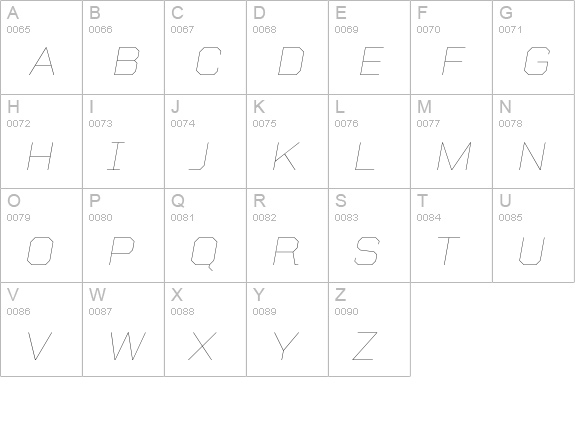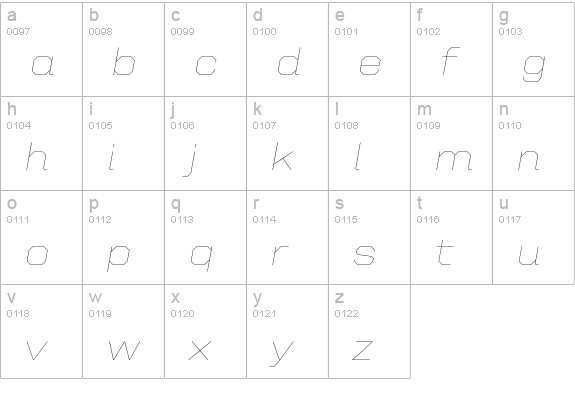
United Italic SemiExt Thin is a delicate, low-contrast, italic variant in the United typeface family \xE2\x80\x94 well suited to fashion editorial, minimal branding, and high-contrast display.
United Italic SemiExt Thin is a stunning and elegant font that exudes sophistication and style. With its sleek and slender design, this font is perfect for projects that require a touch of finesse. The thin and elongated letterforms add a sense of modernity and grace to any text. This font is not only visually appealing but also incredibly versatile. It can be used for a variety of purposes, from branding and logo design to editorial layouts and web design. Its clean and legible characters make it easy to read, ensuring that your message is conveyed effortlessly to your audience. One of the best features of United Italic SemiExt Thin is that it is freely available to download at FontsMarket.com. This means that you can enjoy the beauty and functionality of this font without any cost. Whether you are a professional designer or a hobbyist, this font is a valuable addition to your collection. So why wait? Enhance your creative projects with United Italic SemiExt Thin and let its elegance and versatility elevate your designs to new heights. Download this font for free at FontsMarket.com and unlock the endless possibilities it offers.